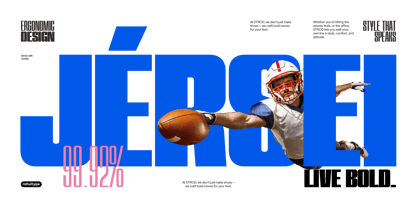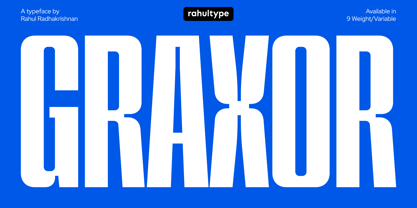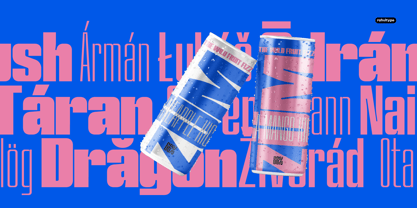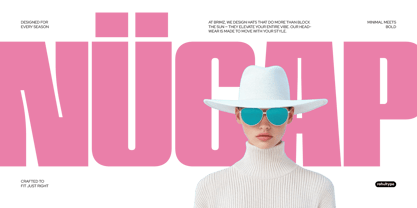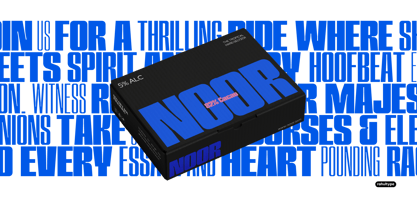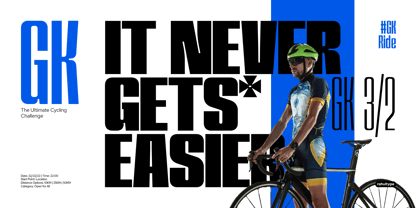
Graxor
by Rahul Type
The Graxor Font Family was designed by Rahul Radhakrishnan and published by Rahul Type. Graxor contains 10 styles and family package options. More about this family
Graxor is a condensed typeface that conveys energy and movement. Influenced by grotesque styles, it features a compact design and sharp details crafted for maximum impact. Graxor is ideal for headlines, logos, sports, and branding. Its dynamic appearance makes it a strong choice for digital design and modern branding, adding a bold and eye-catching presence to posters, brand identities, and other creative projects. Available in a full range of weights from Thin to Thick and designed with inktraps, Graxor ensures enhanced clarity, legibility, and high-impact visuals across all sizes.